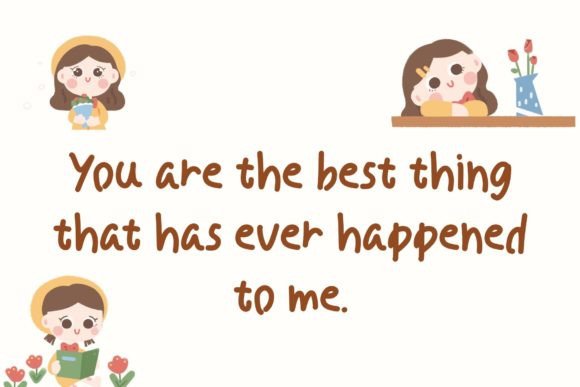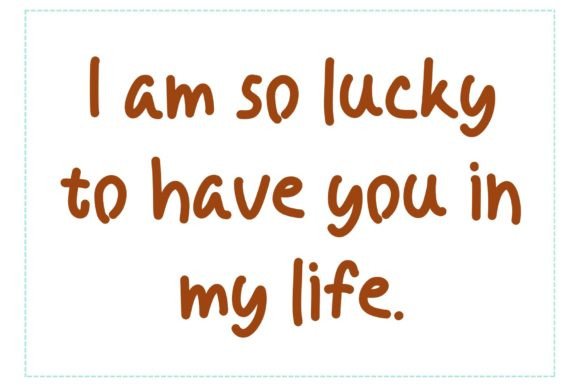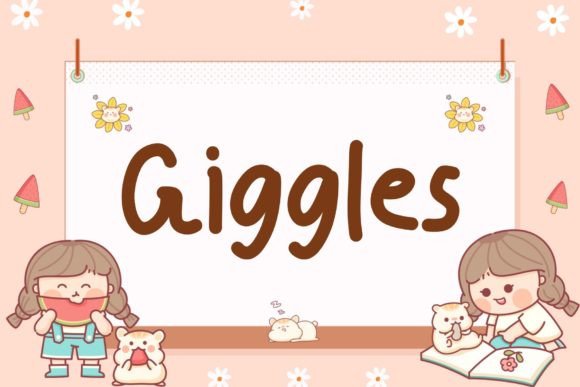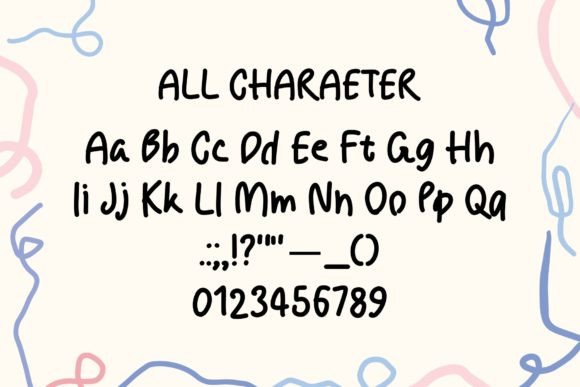
Introducing Giggles Font: The Playful Typeface That Brings Joy to Your Designs
I’ll never forget the time I was working on a children’s book project, and I just couldn’t find the right font to match the playful tone of the story. The client wanted something that would make kids smile, but every font I tried seemed either too boring or too over-the-top. That’s when I stumbled upon Giggles font, and it was love at first sight! ✨ With its cheerful and bouncy letterforms, Giggles font exudes joy and positivity, making it perfect for all your fun and lighthearted projects.
A Personal Review of Giggles Font
- ✨ The playful and whimsical design that’s sure to bring a smile to your face
- 🎉 Extensive character set, including support for multiple languages
- 💻 Works beautifully on both digital and print platforms
While Giggles font is an amazing addition to any design project, there are a few things to keep in mind: 🤔
- ⚠️ Some of the more intricate details may get lost at very small sizes
- ⚠️ Limited availability of stylistic alternates, which may not offer as much flexibility as some users would like
The Backstory Behind Giggles Font
Giggles font was designed with one goal in mind: to bring a smile to people’s faces. The designer, a self-proclaimed font enthusiast, wanted to create a typeface that would capture the essence of laughter and joy. With its cheerful and bouncy letterforms, Giggles font is the perfect result of this creative endeavor. 🌟
Q: What type of projects is Giggles font best suited for?
A: Giggles font is perfect for fun and lighthearted projects like children’s books, birthday cards, party invitations, and social media graphics. 🎉
Q: Does Giggles font support multiple languages?
A: Yes, Giggles font has an extensive character set that supports multiple languages. 🌎
Q: Can I use Giggles font on both digital and print platforms?
A: Absolutely! Giggles font works beautifully on both digital and print platforms, making it a versatile addition to your design toolkit. 💻